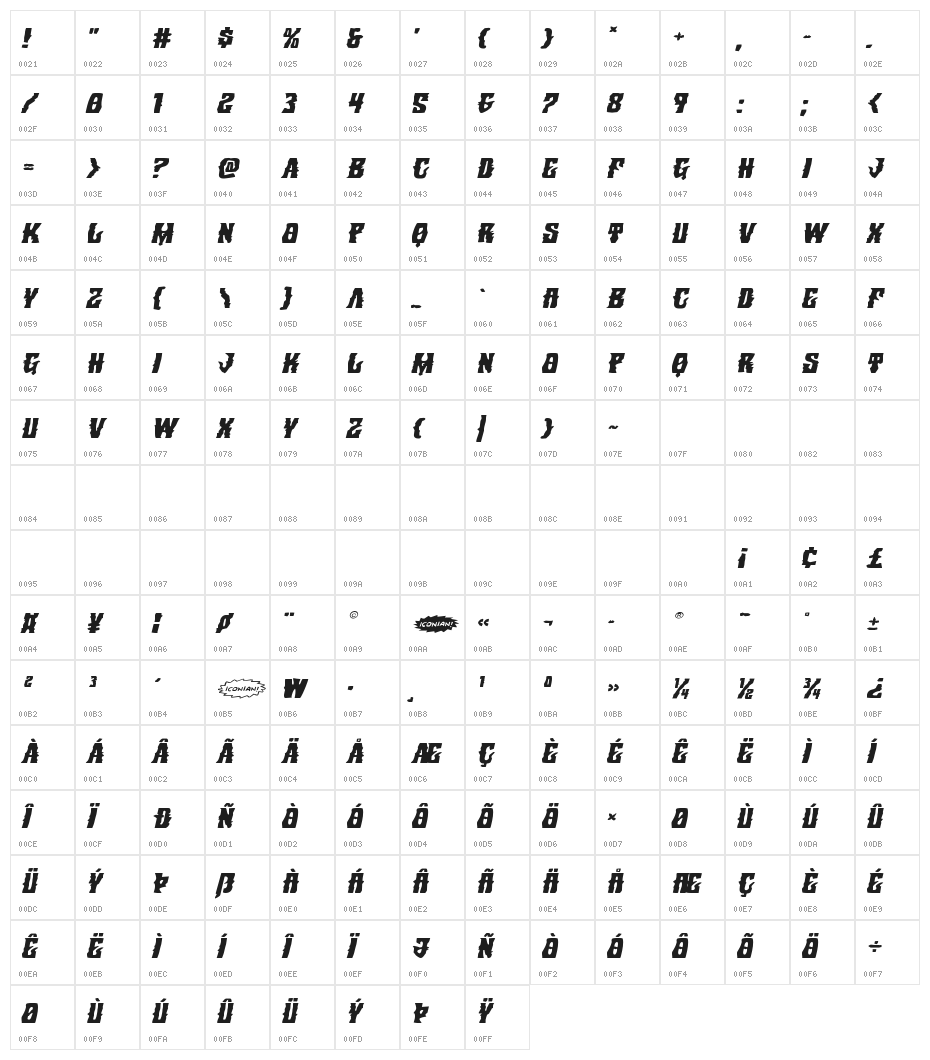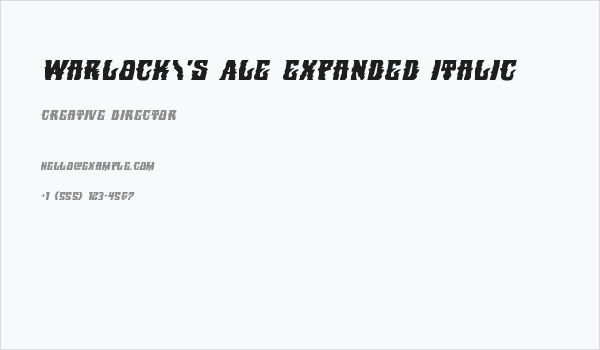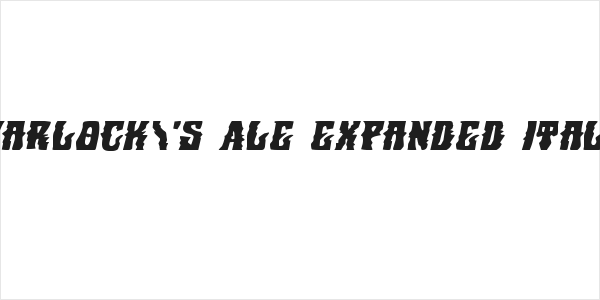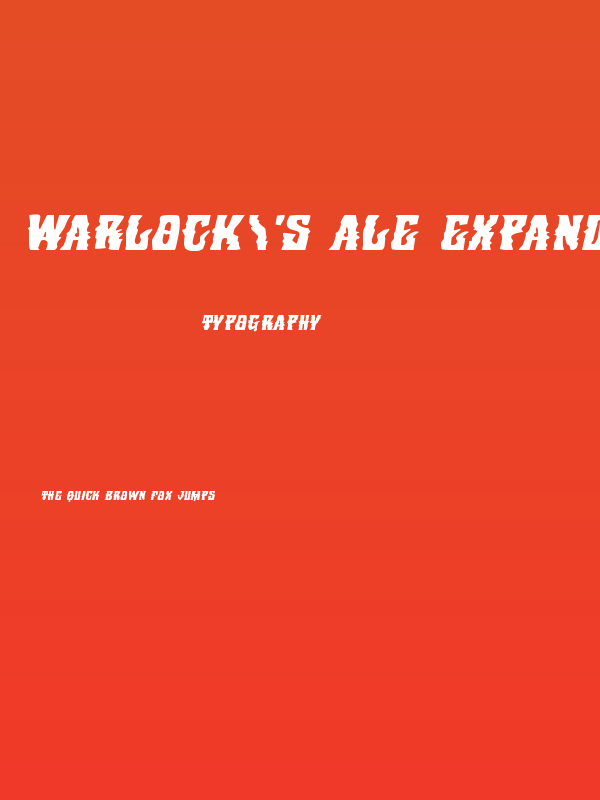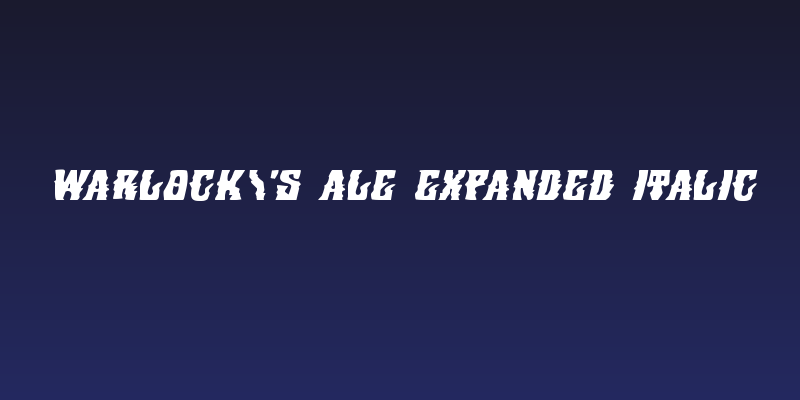
Warlock's Ale Expanded Italic Font
Warlock's Ale Expanded Italic Description
This font features a bold and dramatic style with a distinctly gothic and medieval flair. The characters are heavily stylized with sharp, angular edges and a slightly distressed appearance, giving them a rugged and mystical look. The uppercase and lowercase letters maintain a consistent design, with exaggerated serifs and a sense of movement that suggests a hand-crafted quality. The numbers and special characters follow the same thematic design, ensuring a cohesive appearance across all glyphs. This font is ideal for projects that require a touch of fantasy or historical ambiance.
| Overall Style | Gothic, Medieval, Decorative |
| Proposed Projects | Perfect for fantasy-themed posters, book covers, video game titles, and branding for products with a historical or mystical theme. |